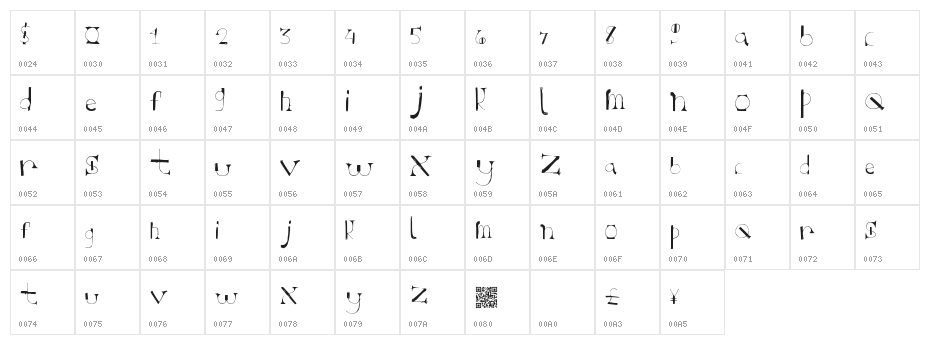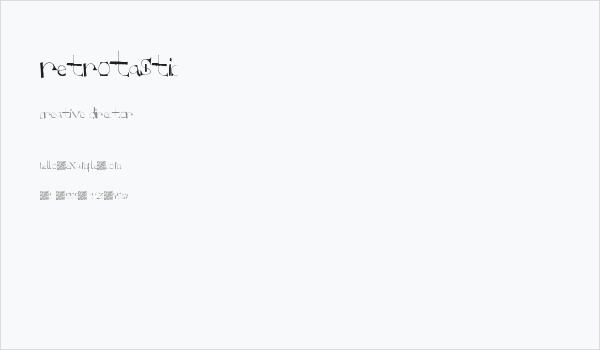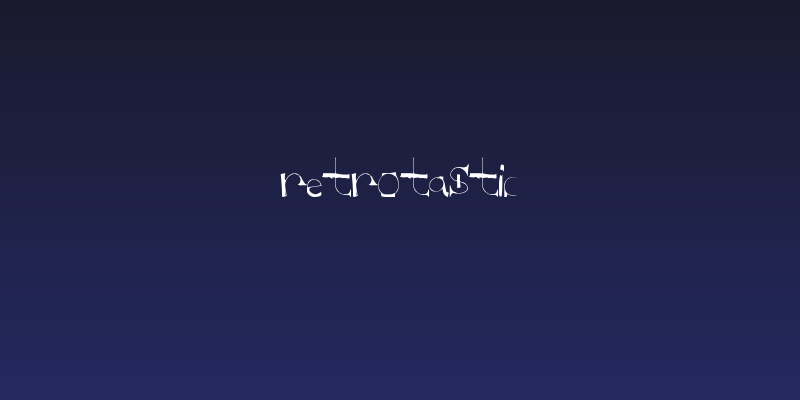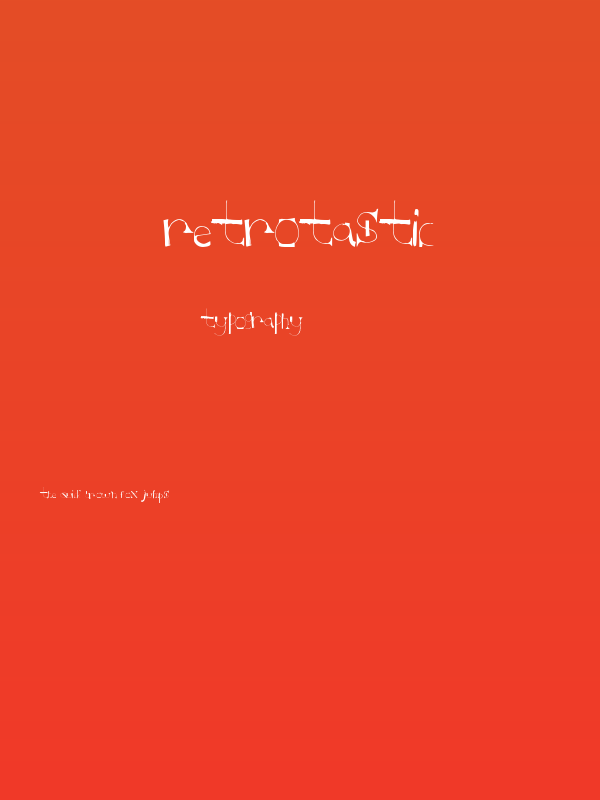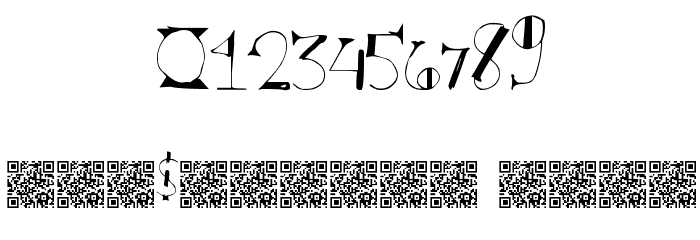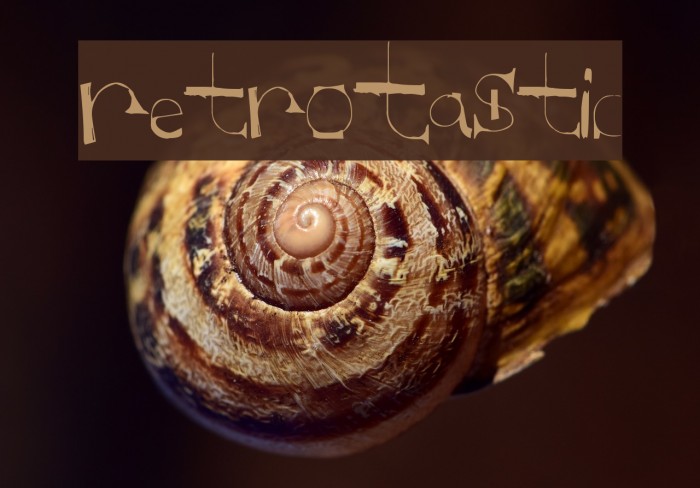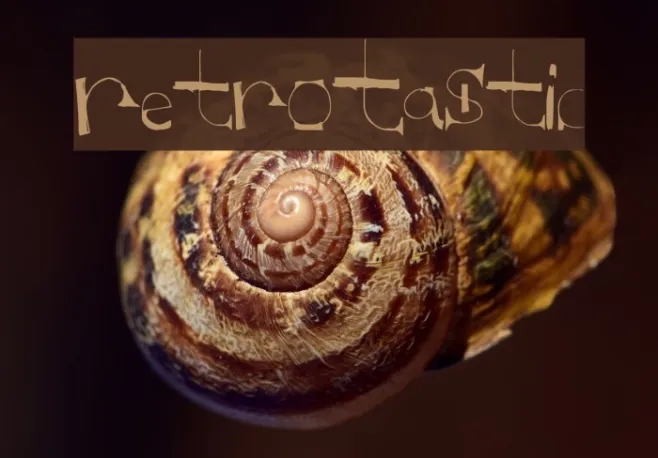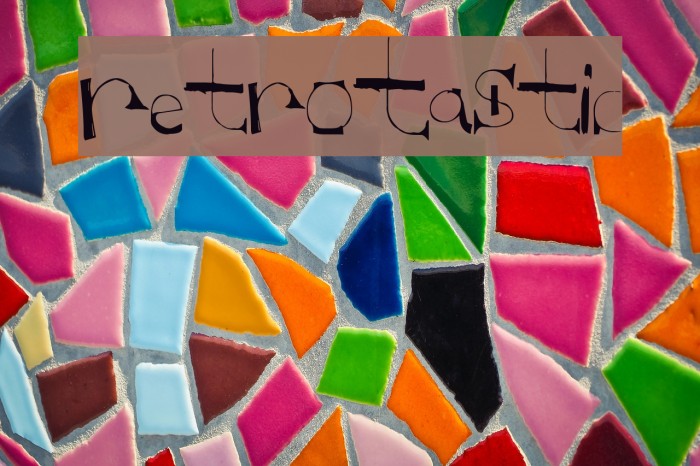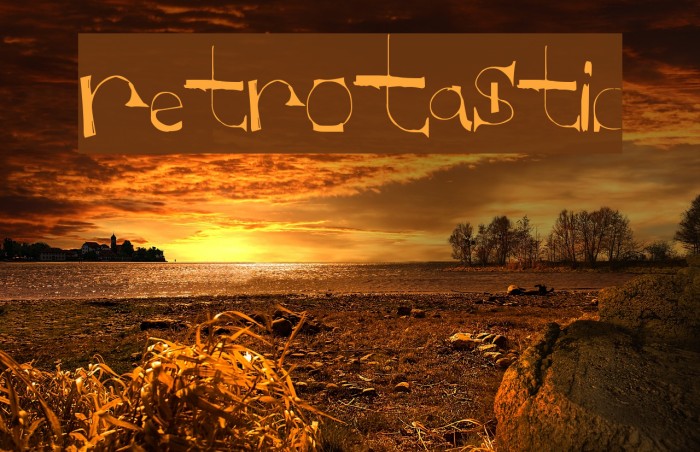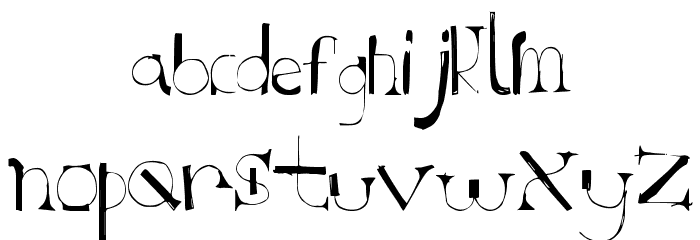
RetroTastic Font
RetroTastic Description
This font features a unique and artistic design that combines elements of both modern and vintage styles. The characters exhibit a playful and whimsical flair, with varying stroke thicknesses and unexpected curves. The uppercase letters are bold and striking, while the lowercase letters maintain a more delicate and intricate appearance. Numbers and special characters follow the same eclectic style, making this font suitable for creative and eye-catching designs. The overall look is decorative and expressive, perfect for projects that require a distinctive and memorable typeface.
| Proposed Projects | Ideal for branding, posters, album covers, and creative digital artwork. |